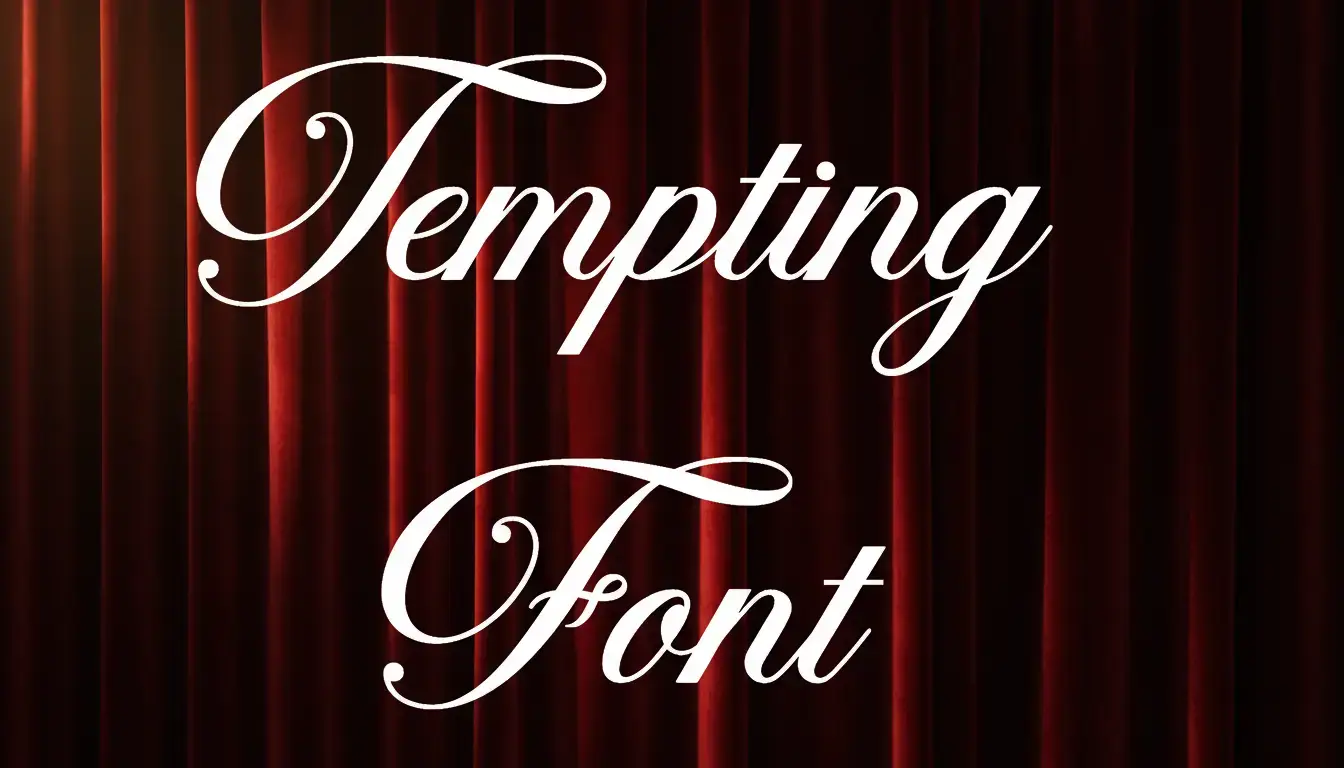
Moh. Ma’in designed Tempting Script, an elegant calligraphic handwritten font, and released it through RGB Studio. Drawing inspiration from traditional ornamental Copperplate styles, it incorporates modern letter connections and delicate lines to deliver a stylish, feminine aesthetic ideal for headlines, invitations, greetings, and packaging.
Tempting
Tempting is a calligraphy font designed by MOH. MA'IN and published by RGB Studio.
- Designer: MOH. MA'IN
- Publisher: RGB Studio